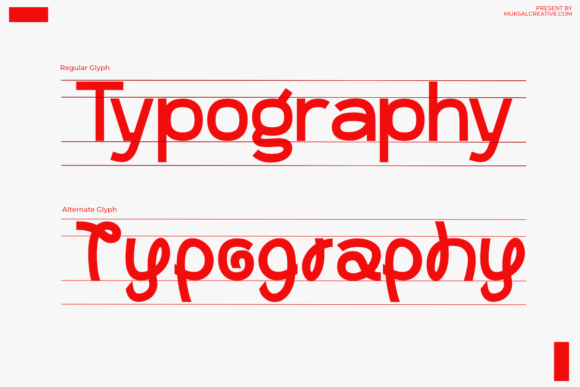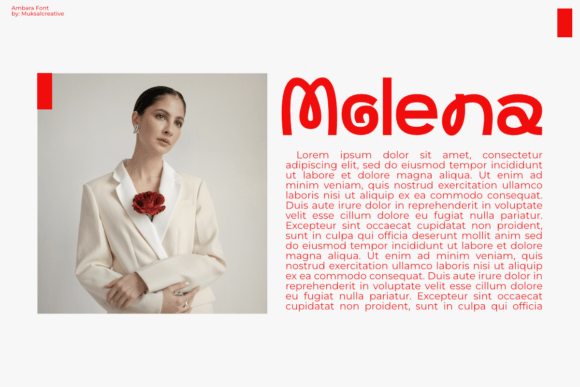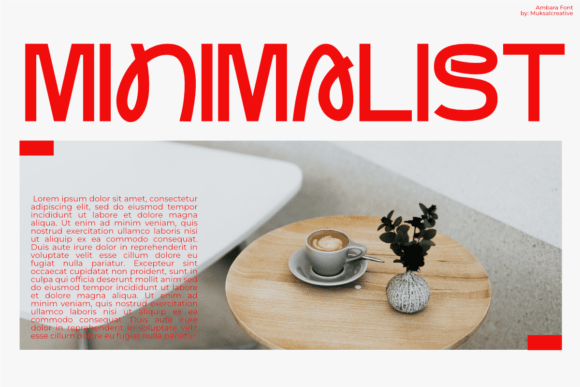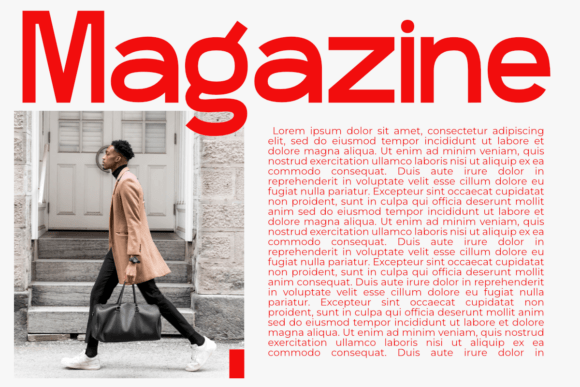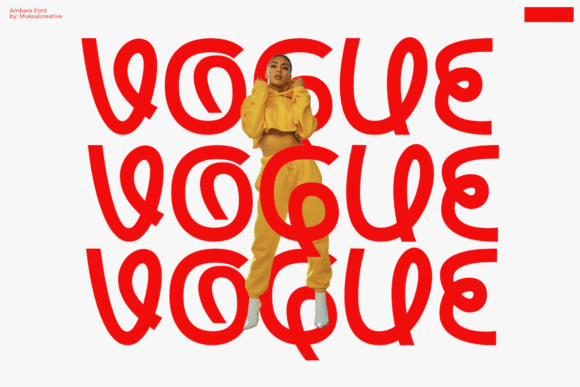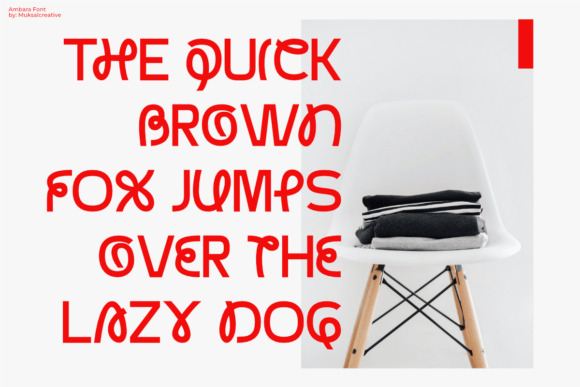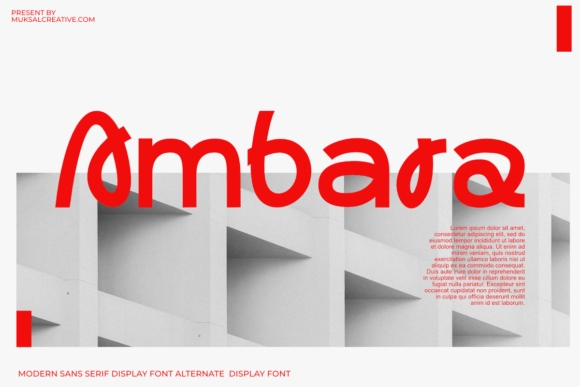
Introducing Ambara Font: The Epitome of Modern Elegance
In the realm of typography, fonts play a pivotal role in conveying messages, evoking emotions, and defining the aesthetic appeal of any design project. Among the myriad of fonts available to designers and crafters, Ambara Font stands out as a beacon of modernity and sophistication. This article aims to delve into the nuances of Ambara Font, exploring its design characteristics, versatility, and the creative possibilities it offers.
The Design Philosophy of Ambara Font
Ambara is a modern sans-serif font that embodies an elegant and futuristic display alternative touch. At its core, Ambara is designed to emphasize clarity and sophistication, making it an ideal choice for projects that demand a high level of visual appeal. The font combines bold lines with smooth curves, achieving a perfect balance between strength and subtlety. This balance is crucial, as it allows Ambara to be versatile, suitable for a wide range of design applications, from headlines and branding to digital interfaces and creative projects.
Key Features of Ambara Font
- Modern Sans-Serif Design: Ambara’s sans-serif design lends it a contemporary look, making it perfect for modern design projects that require a clean and streamlined aesthetic.
- Elegant and Futuristic Touch: The font’s elegant and futuristic display alternative touch sets it apart, offering a unique style that can elevate the visual impact of any design.
- Variety of Alternate Glyphs: One of the standout features of Ambara Font is its extensive variety of alternate glyphs. This feature allows designers to experiment with different styles and expressions, providing limitless creativity in design.
- Perfect Balance: The combination of bold lines and smooth curves in Ambara creates a perfect balance between strength and subtlety. This balance makes Ambara versatile and suitable for various design applications.
Creative Possibilities with Ambara Font
The versatility of Ambara Font, coupled with its modern and elegant design, opens up a plethora of creative possibilities for designers and crafters. Here are some of the areas where Ambara truly shines:
- Headlines and Titles: Ambara’s bold and futuristic look makes it an excellent choice for headlines and titles, where grabbing the reader’s attention is paramount.
- Branding and Logos: The elegance and sophistication of Ambara make it suitable for branding and logo design, helping brands to establish a modern and dynamic identity.
- Digital Interfaces: For digital interfaces, such as websites, apps, and software, Ambara’s clarity and readability make it an excellent choice, enhancing user experience.
- Creative Projects: Whether it’s for posters, flyers, or any other creative project, Ambara’s unique blend of elegance and futurism can add a distinctive touch, setting the project apart.
Ambara Font is a remarkable addition to the world of typography, offering a modern sans-serif design that is both elegant and futuristic. Its versatility, coupled with a variety of alternate glyphs, makes it a powerful tool for designers and crafters looking to add a touch of sophistication and dynamism to their projects. Whether you’re working on headlines, branding, digital interfaces, or creative projects, Ambara Font is poised to elevate your designs to new heights of visual excellence.
In conclusion, Ambara Font represents a significant advancement in font design, offering a perfect blend of modernity, elegance, and versatility. As designers and crafters continue to seek fonts that can help their work stand out in a crowded digital landscape, Ambara Font is well-positioned to become a go-to choice for those aiming to make a lasting impression.